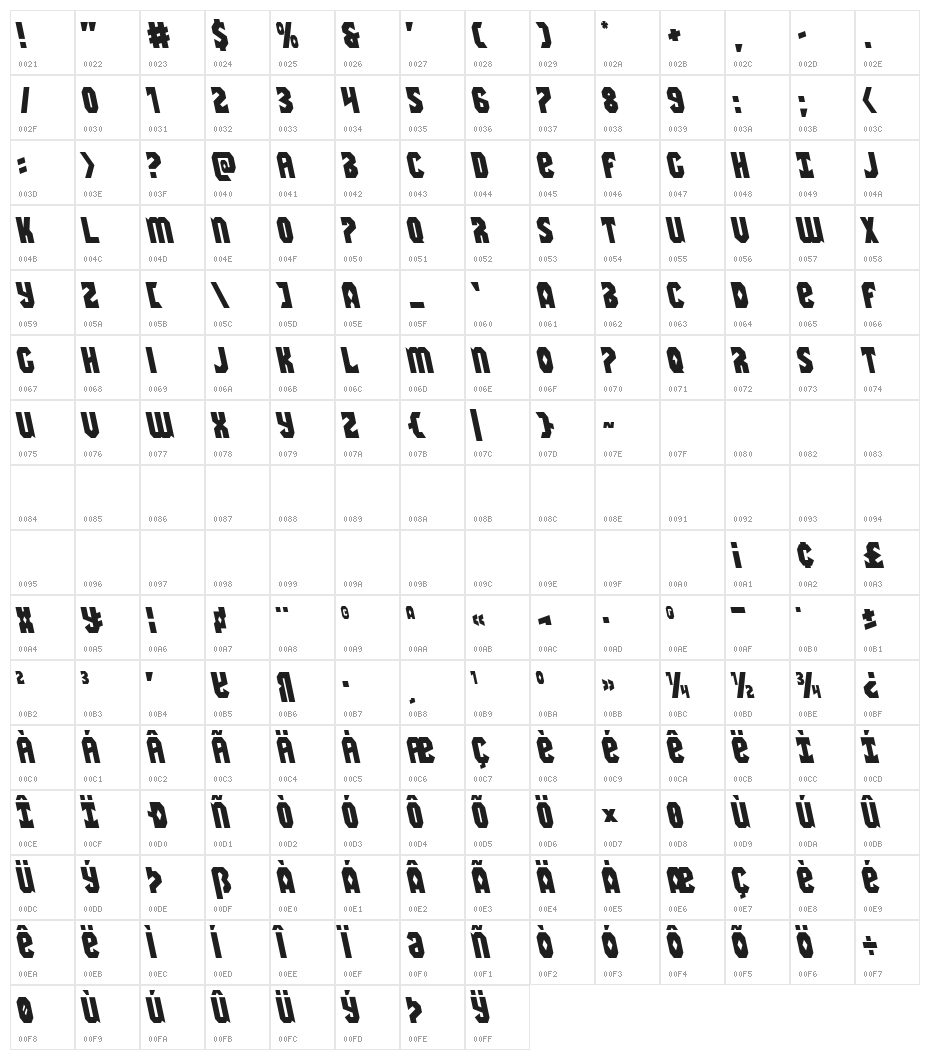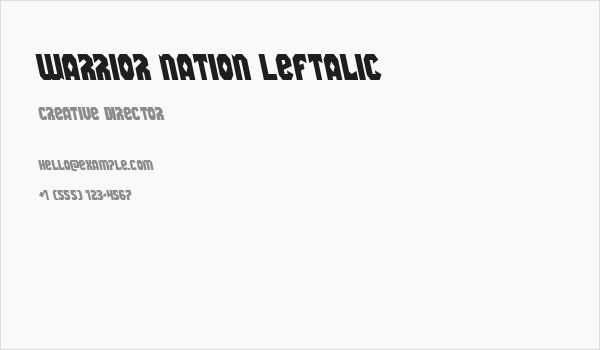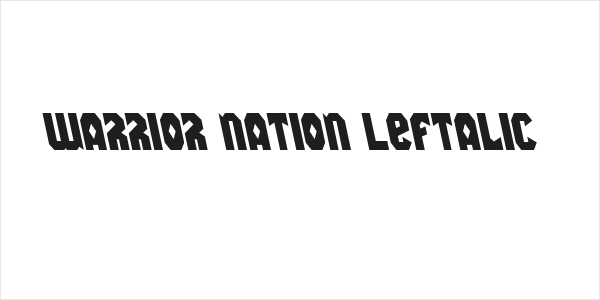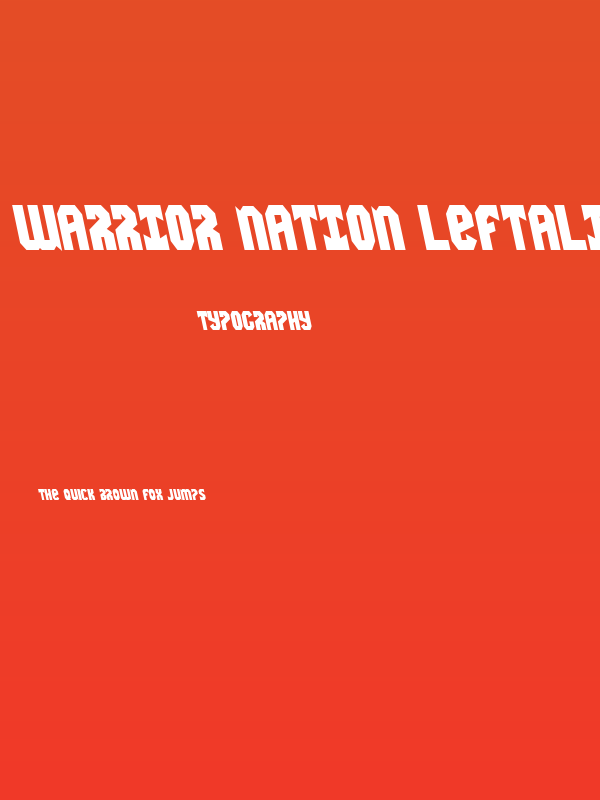
Warrior Nation Leftalic Font
Warrior Nation Leftalic Description
This font features a bold and angular design, characterized by its sharp, geometric shapes and strong presence. The letters are heavily stylized with a distinct slant, giving them a dynamic and aggressive appearance. The uppercase and lowercase letters maintain a consistent style, with thick strokes and minimal contrast, creating a uniform and cohesive look. The numbers and special characters follow the same design principles, ensuring a seamless integration across different text elements. This font is ideal for projects that require a bold and impactful visual statement.